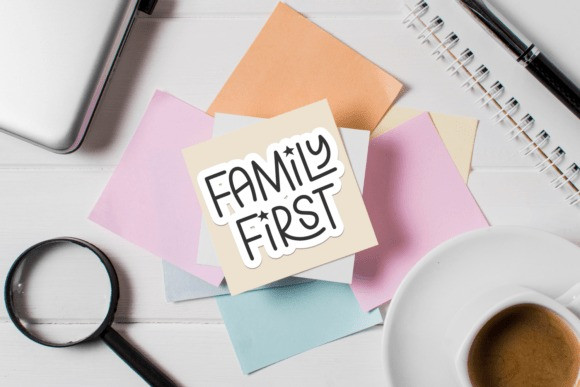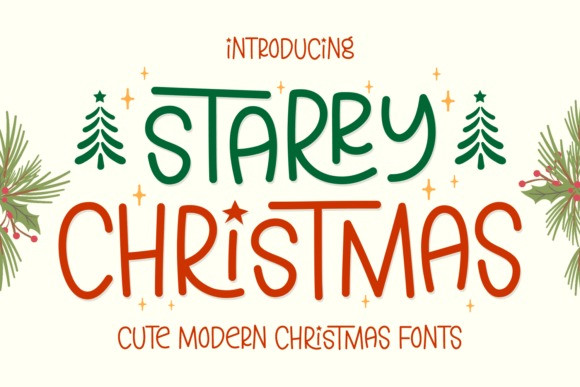
Starry Christmas Font
Starry Christmas Font is a playful handwritten display font designed to bring a cheerful touch to festive projects. Featuring smooth, rounded strokes with whimsical star and tree-themed accents, it combines a casual, modern look with seasonal charm. Ideal for holiday cards, apparel, mugs, posters, stickers, social media graphics, and cutting machine projects like Cricut and Silhouette, this font adds personality and warmth to any Christmas-themed design. Its versatility and friendly style make it a go-to choice for creatives during the holiday season. With PUA encoding included, all special characters and decorative elements are easily accessible without additional software.